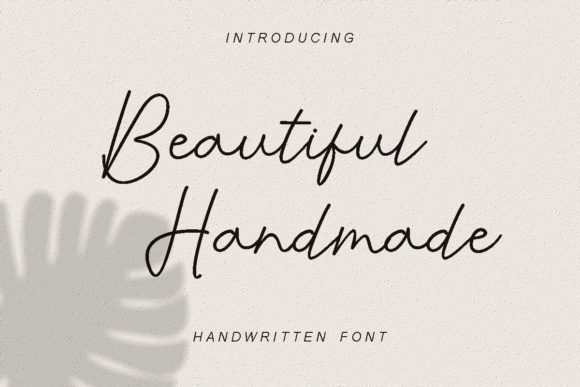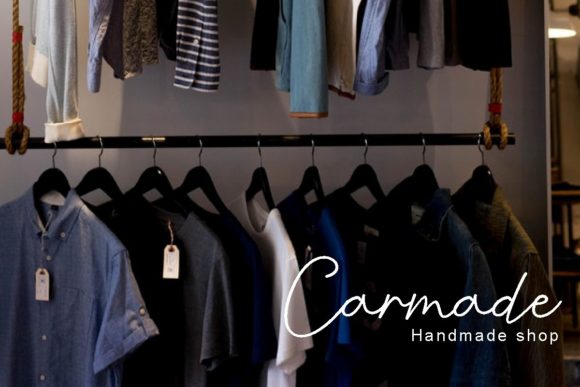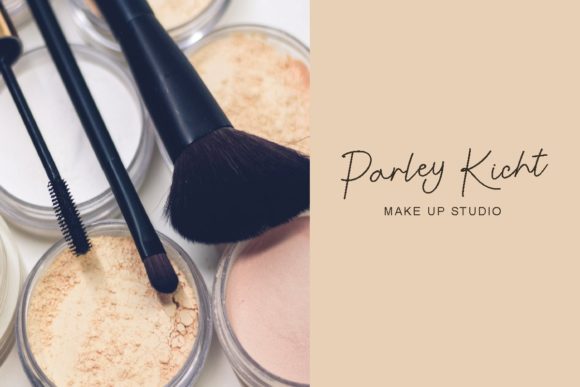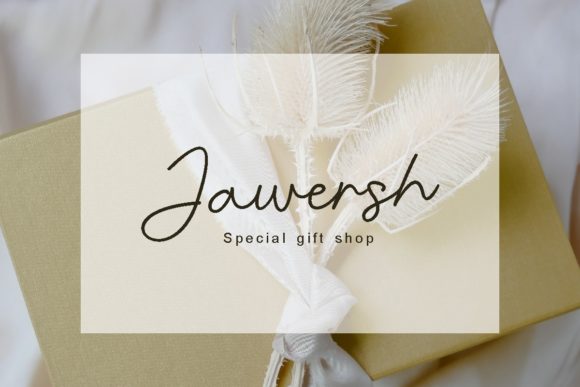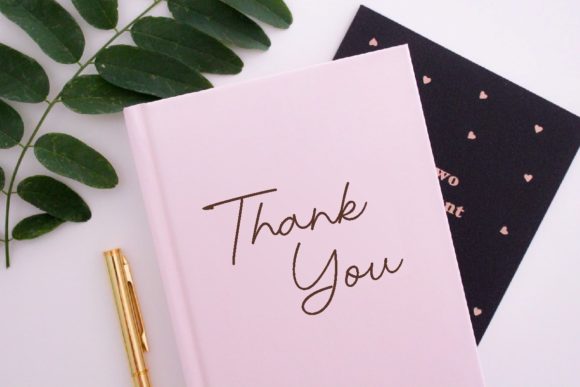
Beautiful Handmade Font
About Beautiful Handmade Font
Beautiful Handmade is a delicate, elegant and flowing handwritten font. It has beautiful and well balanced characters and as a result, it matches a wide pool of designs. The only limit is your imagination.